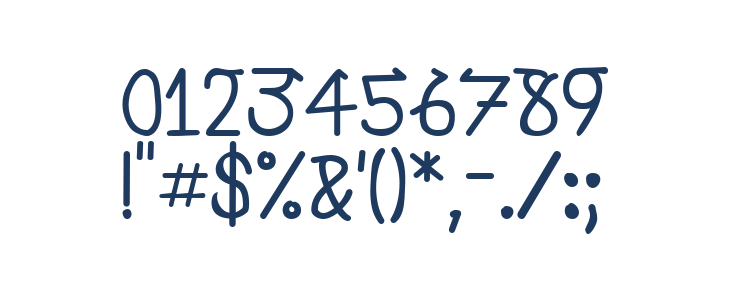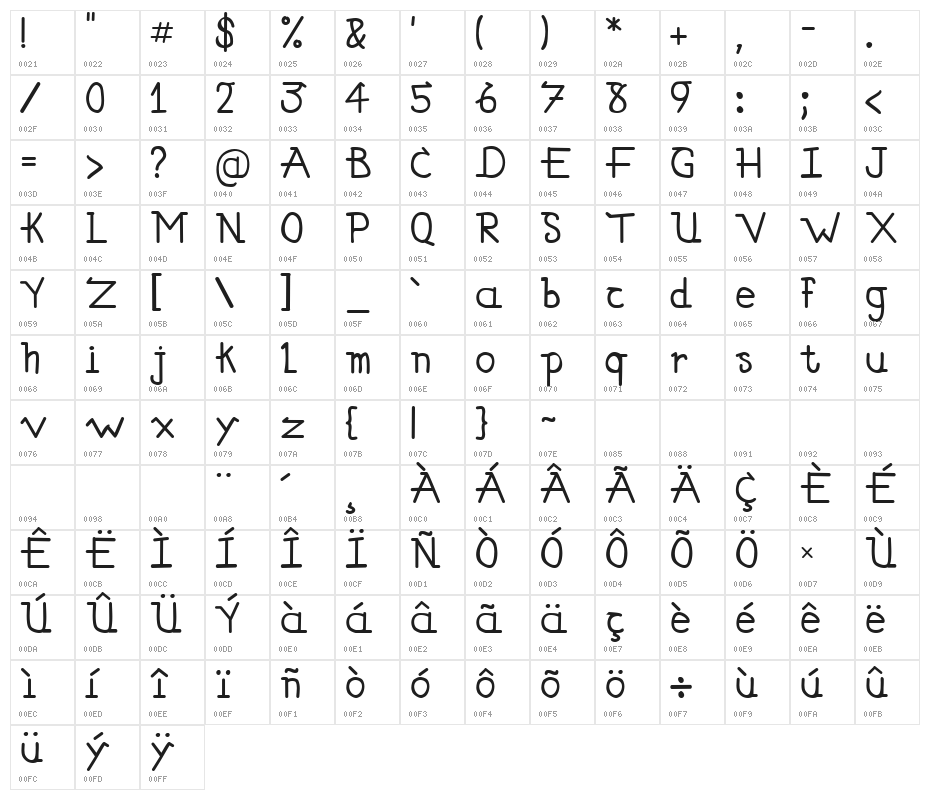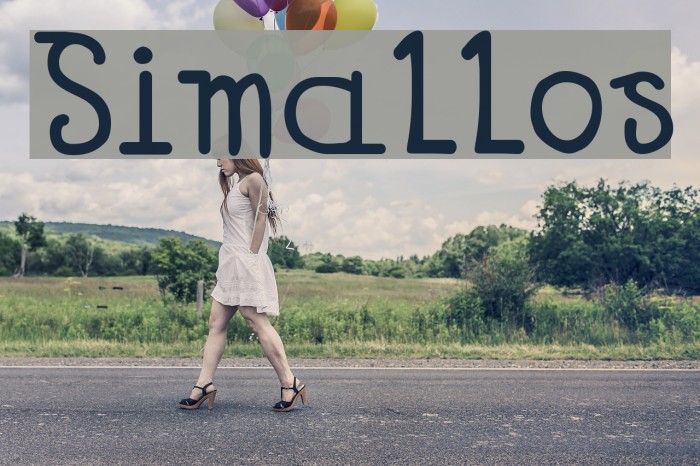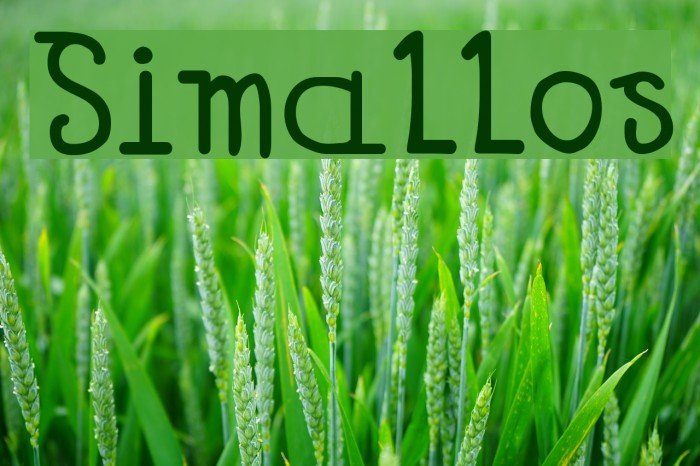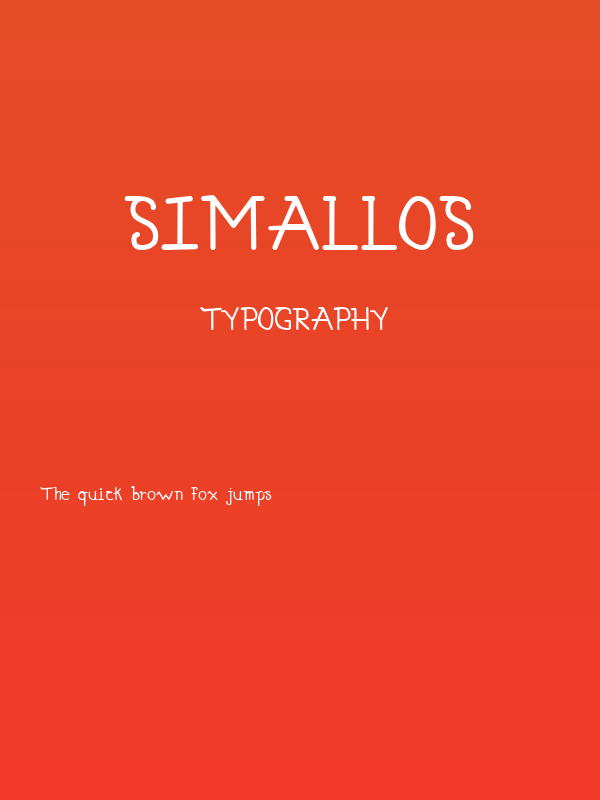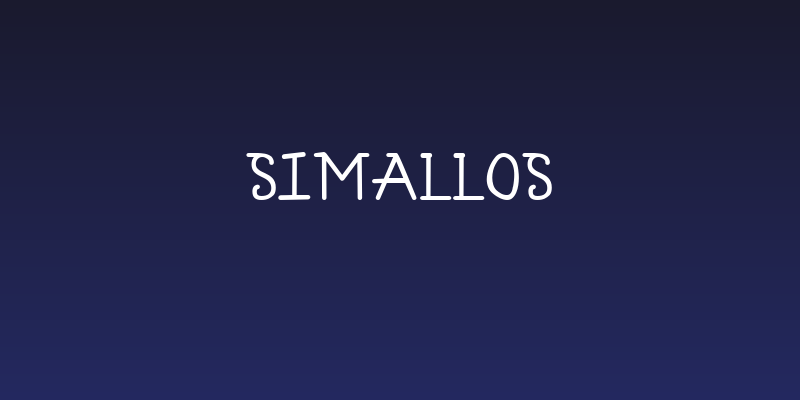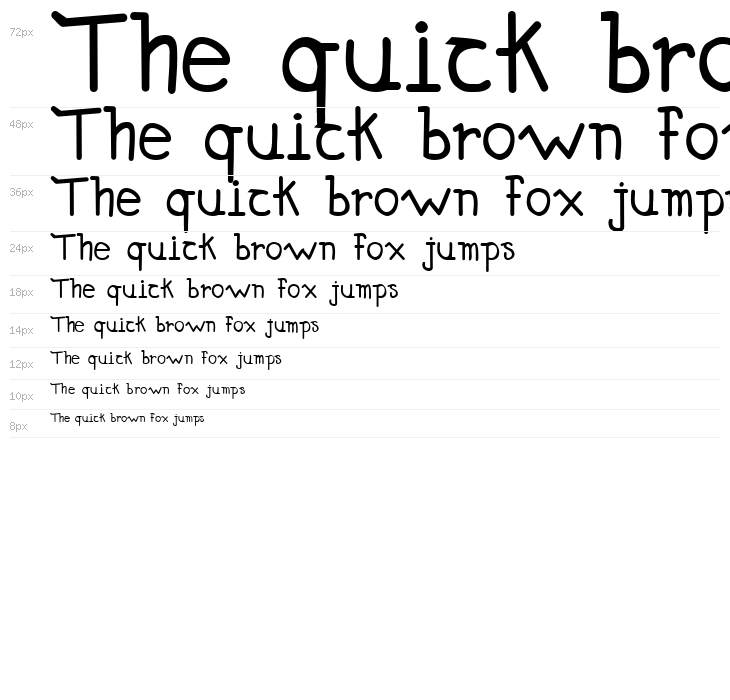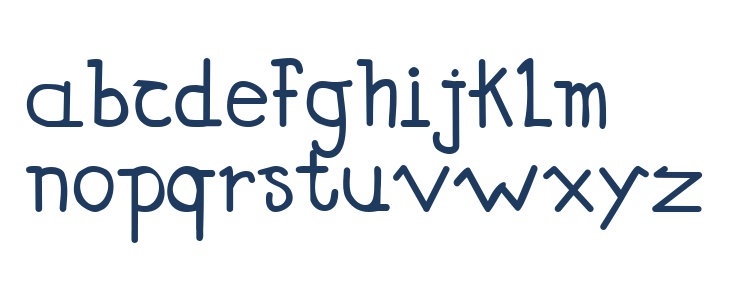
Simallos Font
Simallos Description
This font features a playful and whimsical design, characterized by its unique and slightly irregular strokes. The uppercase letters have a distinct, quirky style with some characters exhibiting unexpected curves and angles, adding to its charm. The lowercase letters maintain a consistent flow, with rounded edges that enhance its friendly appearance. Numbers and special characters follow the same playful theme, making the font suitable for creative and informal applications. The overall design is approachable and fun, making it ideal for projects that require a touch of personality and creativity.
| Overall Style | Playful |
| Use Case | Headlines, Logos, Creative projects |
| Proposed Projects | Ideal for children's books, playful branding, greeting cards, and creative posters. |